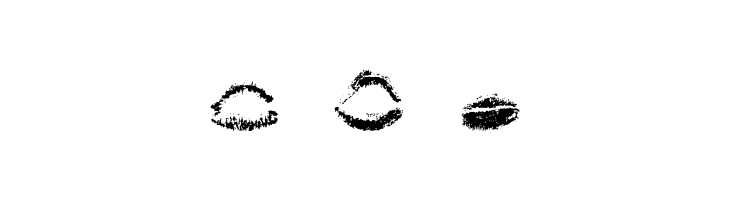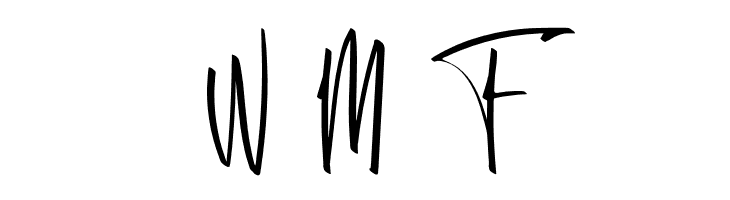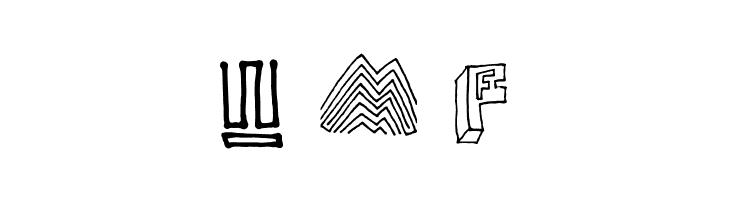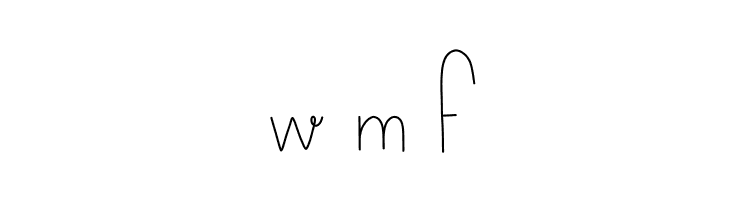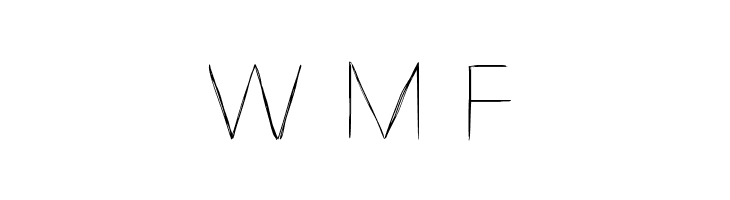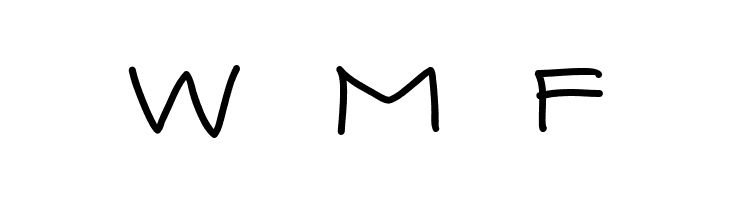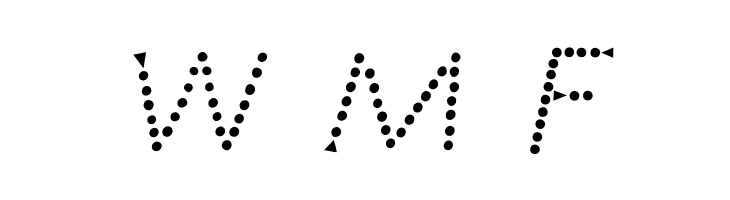
A bold, italic, handwritten font with a playful, scribbled style.
A quirky, hand-drawn font with jagged edges and a playful style.
A playful, artistic font with tall, hand-drawn characters and varying stroke widths.
A dynamic italic font with smooth, flowing curves and a modern, expressive style.
A casual, handwritten font with a personal and informal style.
A bold, sketch-like font with uneven, hand-drawn strokes.
A playful, whimsical font with irregular strokes and dot embellishments.
A bold, playful font with a hand-drawn aesthetic and varying line thickness.
A modern, artistic font with elongated, narrow letterforms and sharp angles.
A bold, hand-drawn font with a playful and artistic style.
A dynamic, expressive handwritten font with fluid strokes and artistic flair.
A whimsical, hand-drawn font with playful and irregular letterforms.
A playful, hand-drawn font with overlapping lines and a whimsical style.
A playful, hand-drawn font with irregular, sketch-like letterforms.
A playful, sketch-like handwritten font with dynamic strokes and a casual feel.
A bold, handwritten font with a playful and dynamic style.
A playful, dotted cursive font with a whimsical and airy design.
A bold, expressive script font with a marker-like, handwritten style.
An ultra-thin, modern font with abstract and artistic character designs.
A modern, hollow, decorative font with outlined characters.
A whimsical, hand-drawn font with playful and dynamic strokes.